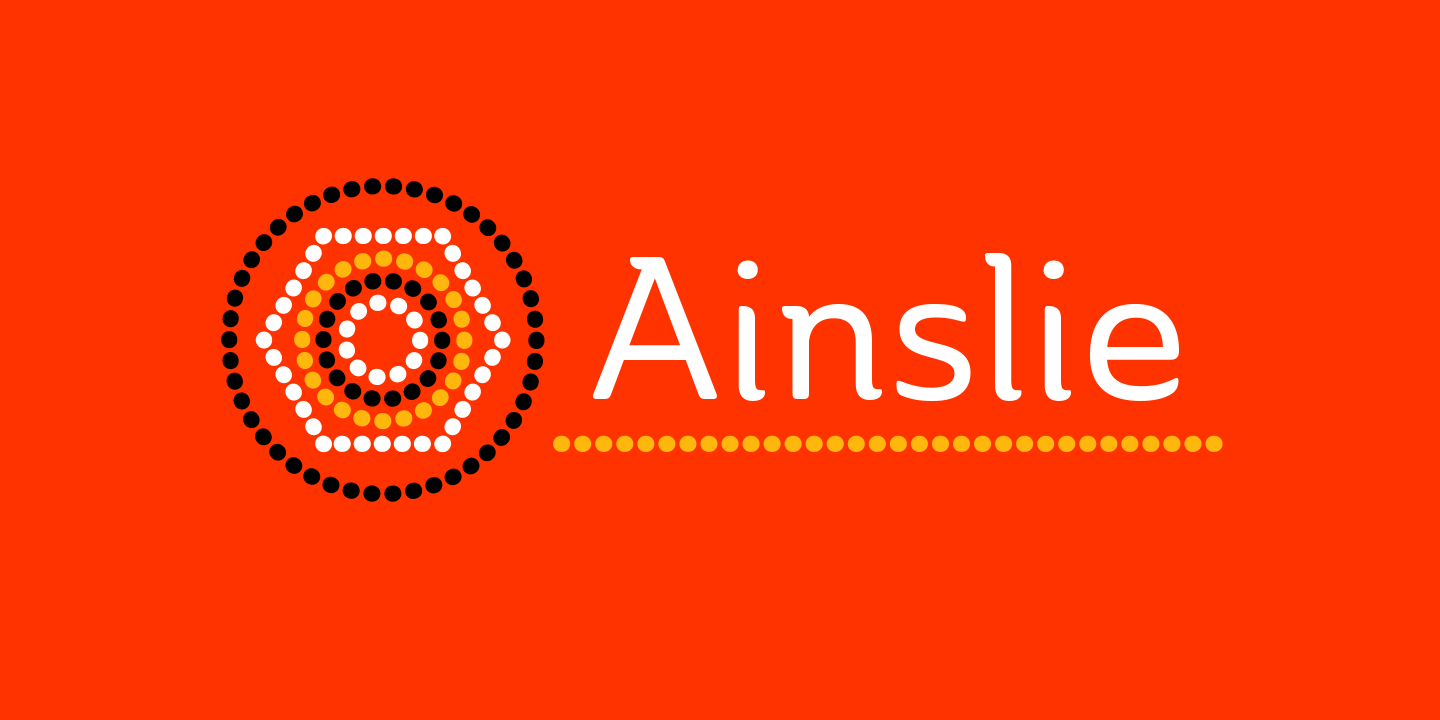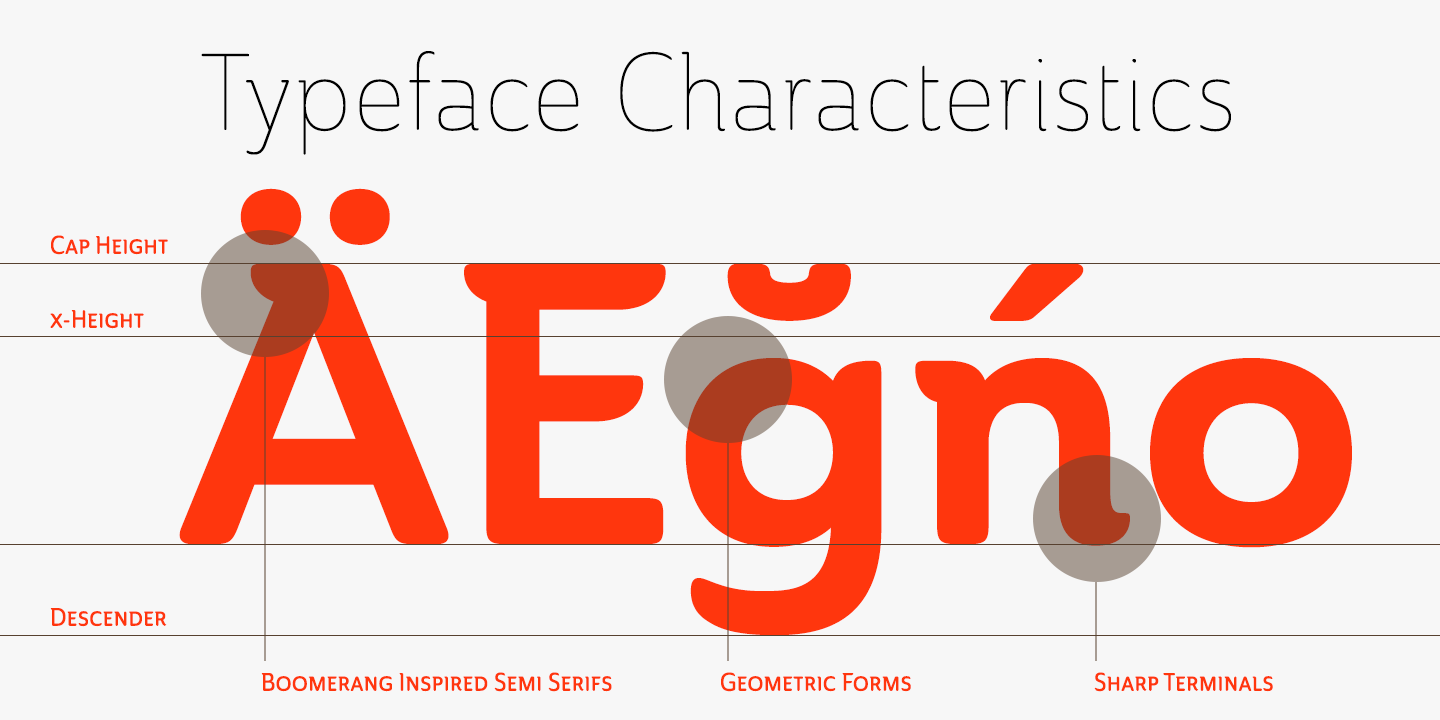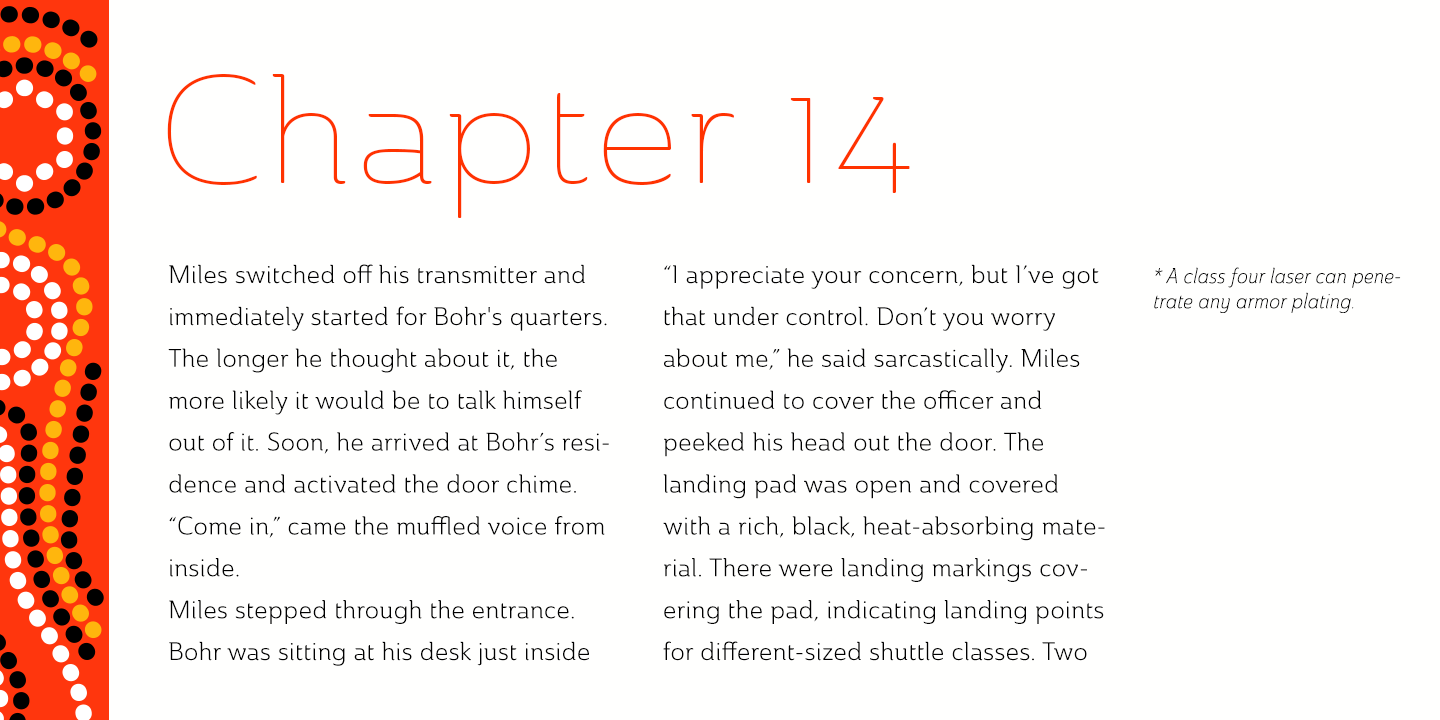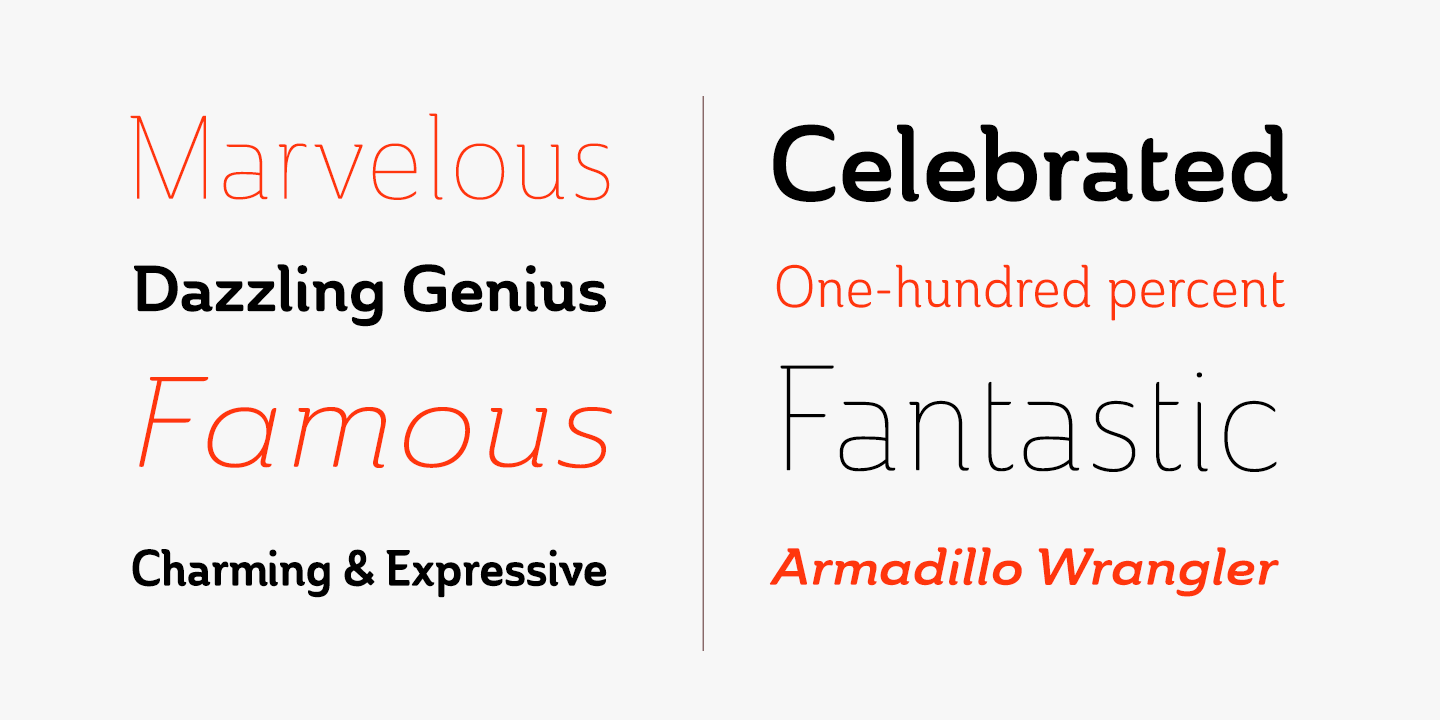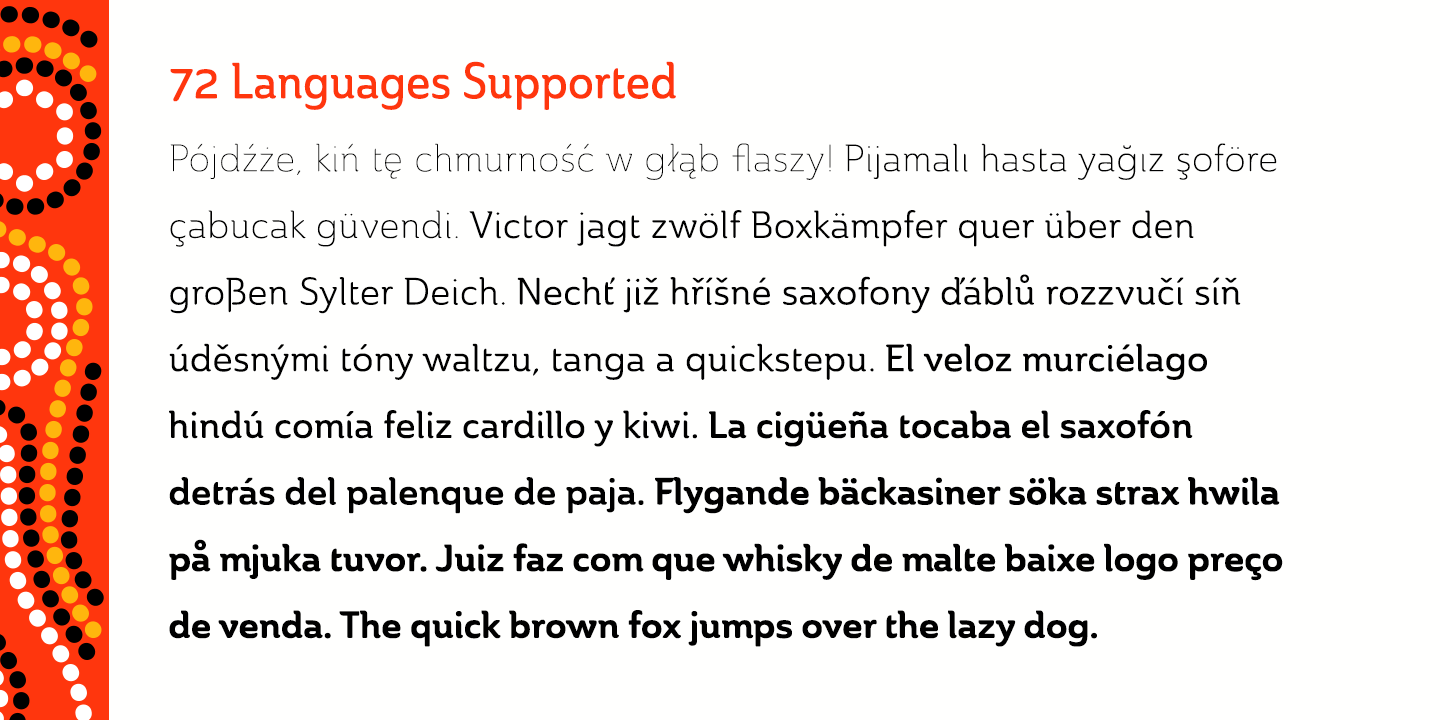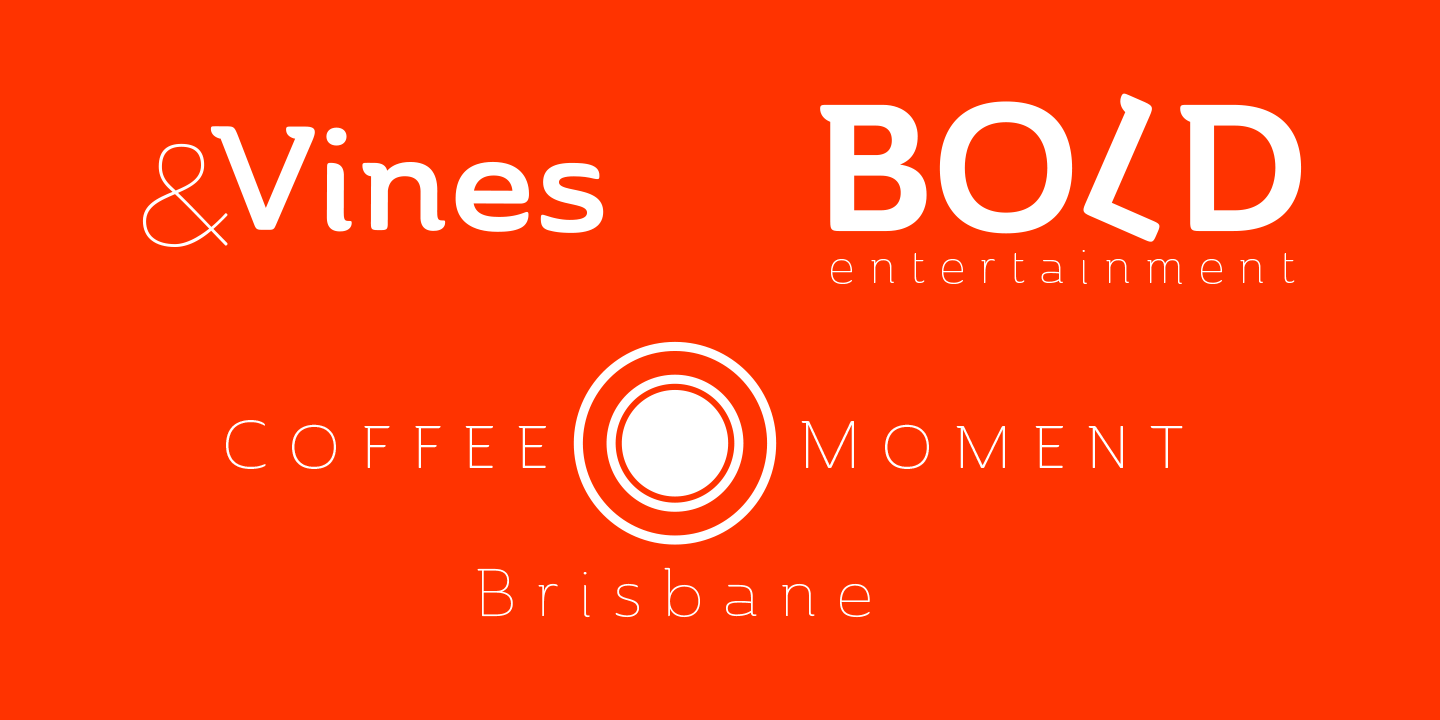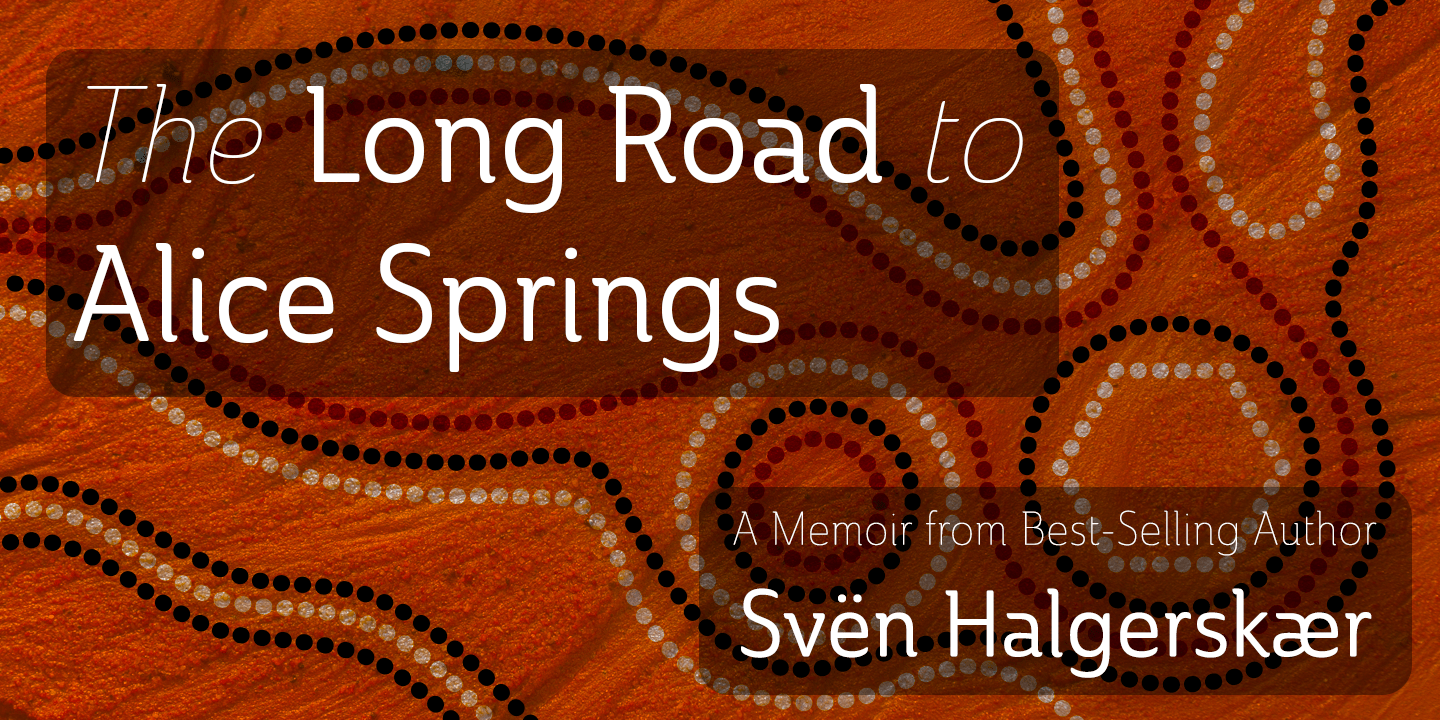
Ainslie
Ainslie, named for Mt. Ainslie and Canberra's inner suburb of the same name, was originally developed for the Canberra Australia Centennial Typeface Competition. Canberra is Australia's capital, and It's a planned city designed by American Walter Burley Griffin, a contemporary and one-time associate of Frank Lloyd Wright. Griffin's plan involved a distinctly geometric design with several focal points--one of which was Mt. Ainslie. This same purely geometric scheme is now the basis for insigne's new release.
Similar to the Chatype project in its scope, its challenge, and the way its concept was developed, Ainslie incorporates influences from Canberra and surrounding areas to form a font that is uniquely Australian. In comparison, Chatype was developed for the city of Chattanooga, Tennessee by insigne in conjunction with designer Robbie de Villiers. Chatype took elements from Chattanooga's industrial character and Cherokee past and merged them with the area's technological influences.
Likewise, Ainslie takes Canberra's distinct, geometric design and blends it with the organic, flowing effect of aboriginal art. Add in touches from the smooth, aerodynamic design of the boomerang and Ainslie gives you a look uniquely Australian yet usable in a wide range of applications.
The fashionable typeface includes a multitude of alternates that can be accessed in any OpenType-enabled application. These stylish alternates along with a number of swashes as well as meticulously refined details with ball terminals and alternate titling caps keep the font well accessorized. Also included are capital swash alternates, old style figures, and small caps. Peruse the PDF brochure to see these features in action. OpenType enabled applications such as the Adobe suite or Quark can take full advantage of the automatic replacing ligatures and alternates. This family also offers the glyphs to support a wide range of languages.
While Ainslie wasn't selected as the final font in the Canberra competition, the outcome allowed for additional adjustments to the typeface. Several approaches were attempted for the final product including a technological hexagonal concept, which may still be developed to another form later. Some of the organic forms were removed and substituted with more abrupt endings, leaving the face looking pretty spiffy and a fair bit more legible. In the end, Ainslie was pulled back to the basic forms from which it was started.